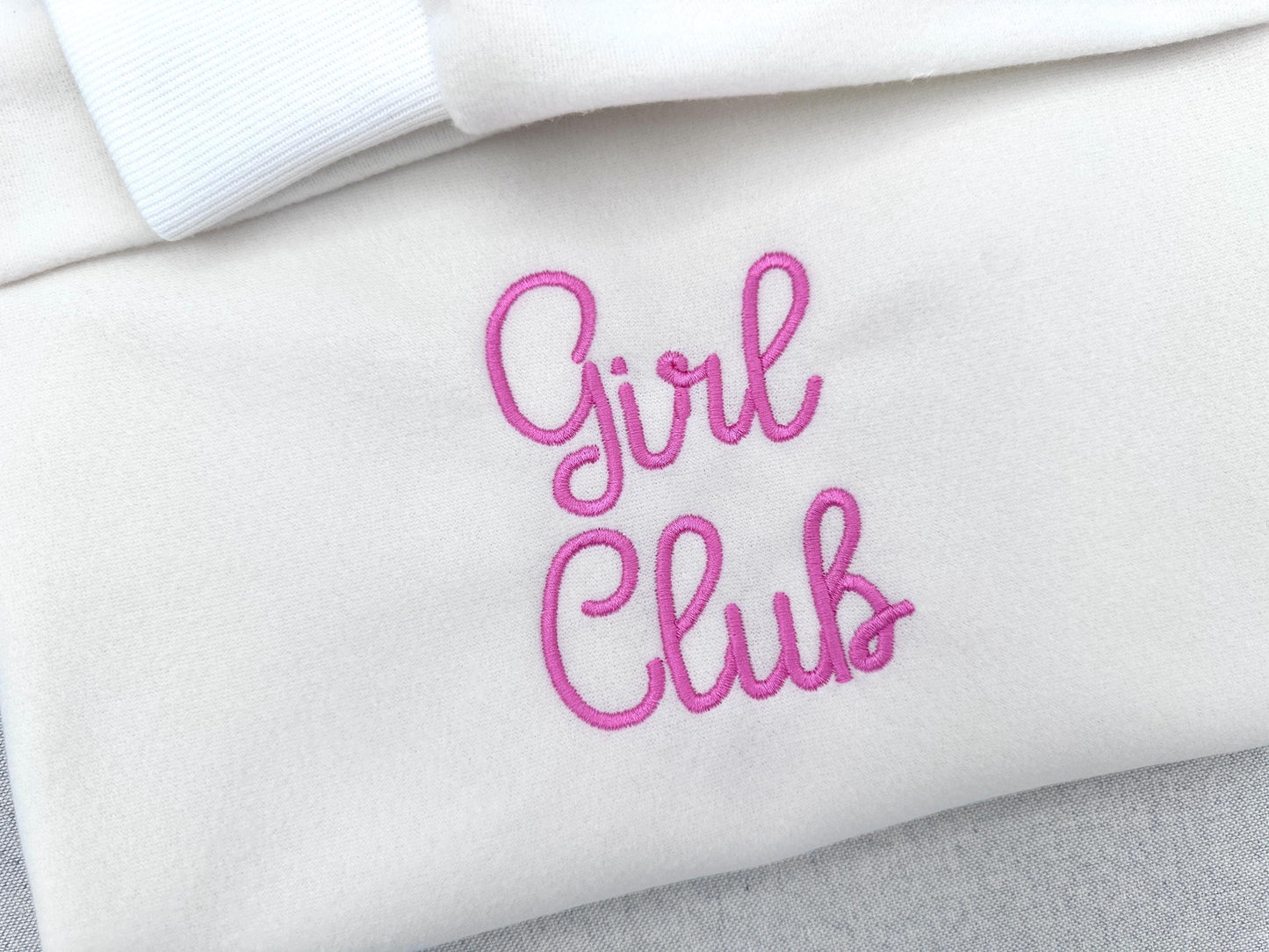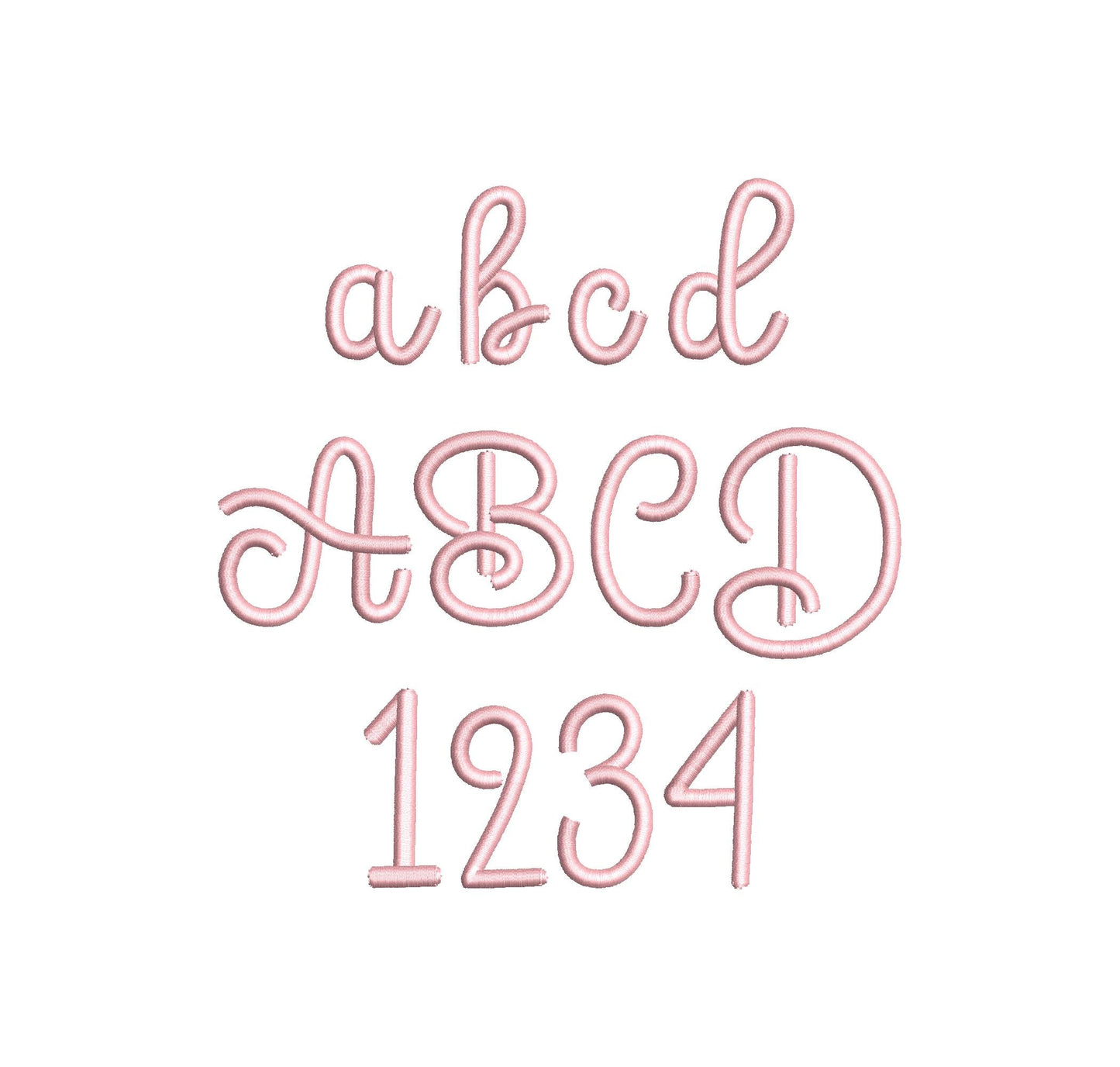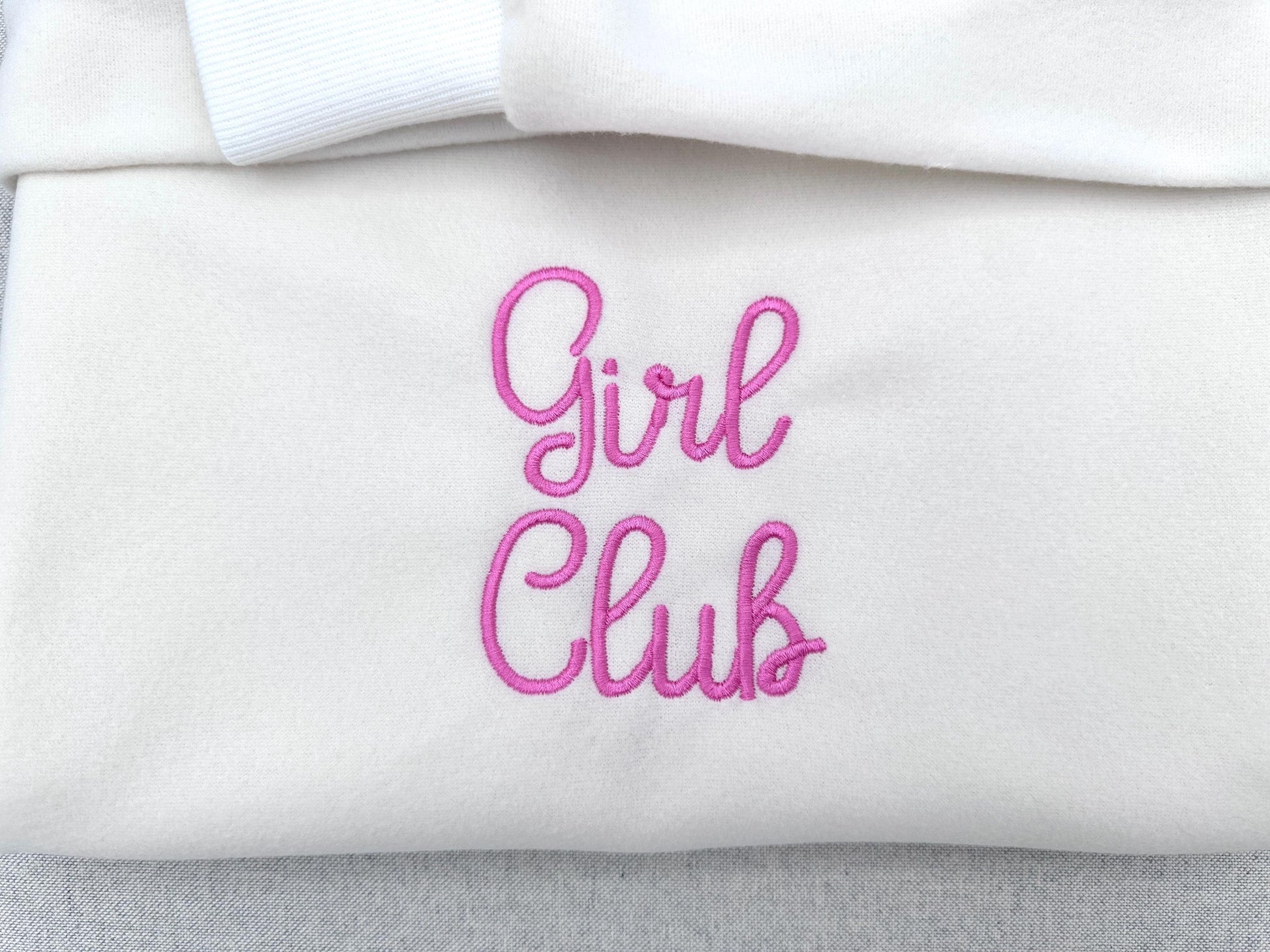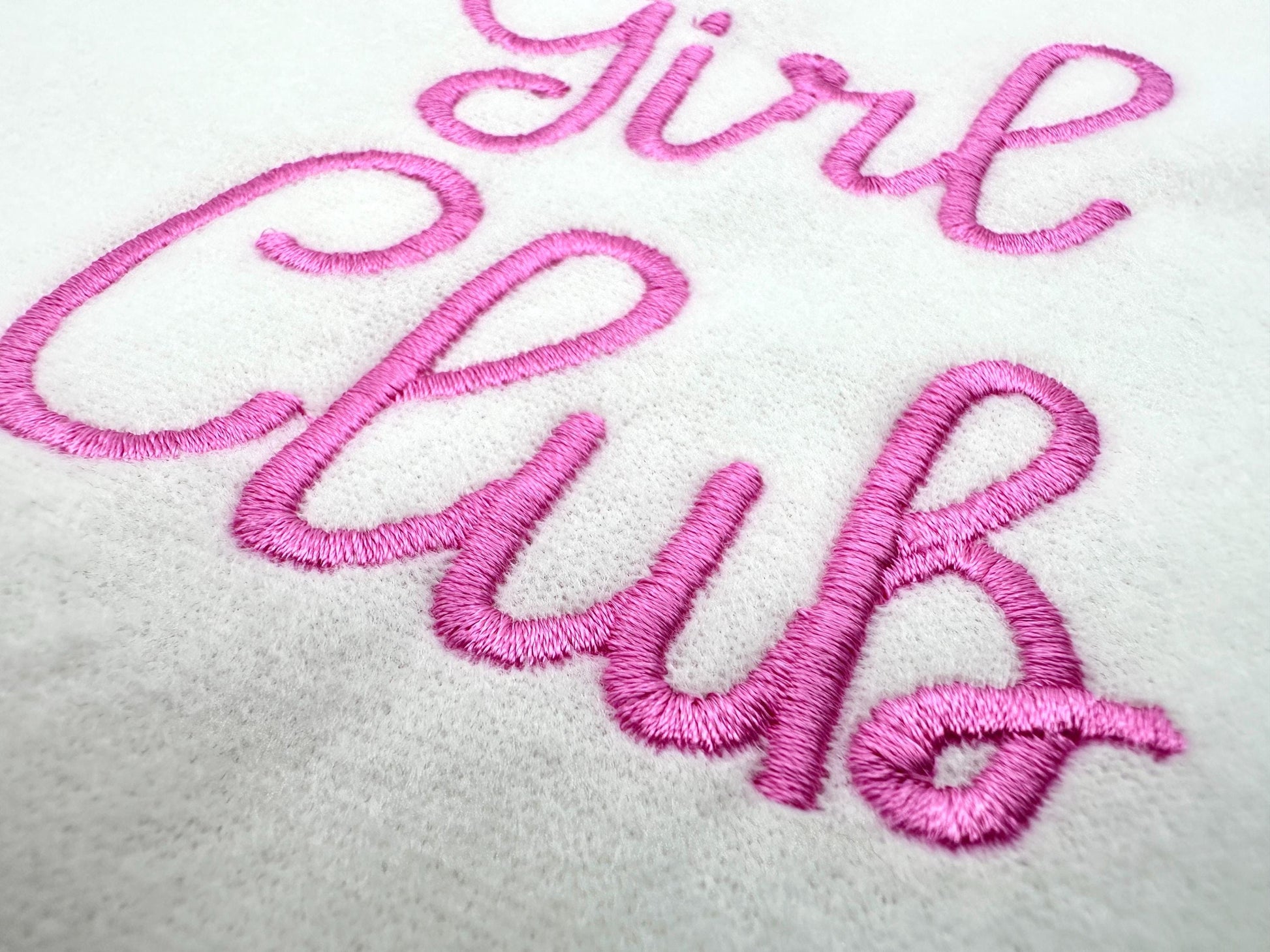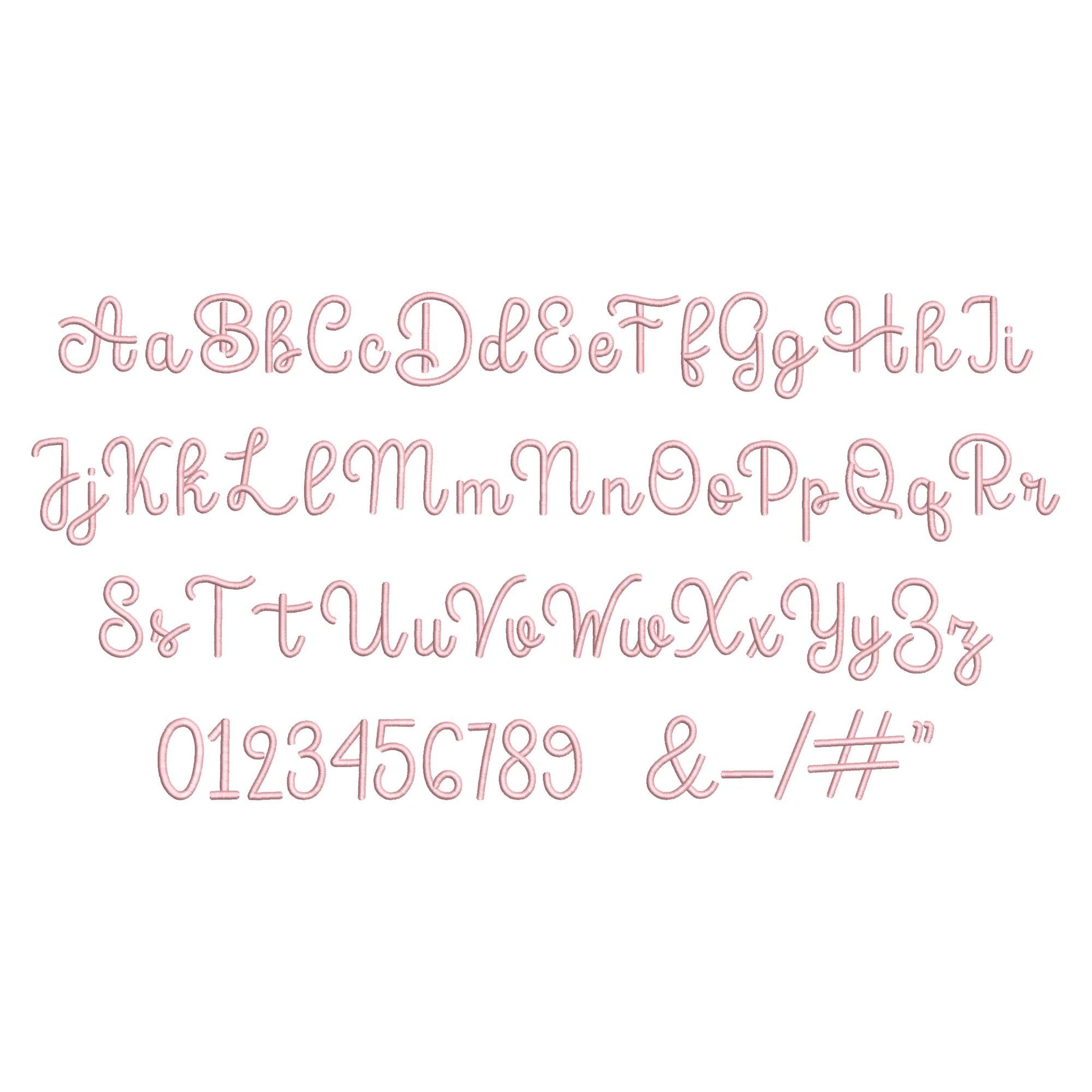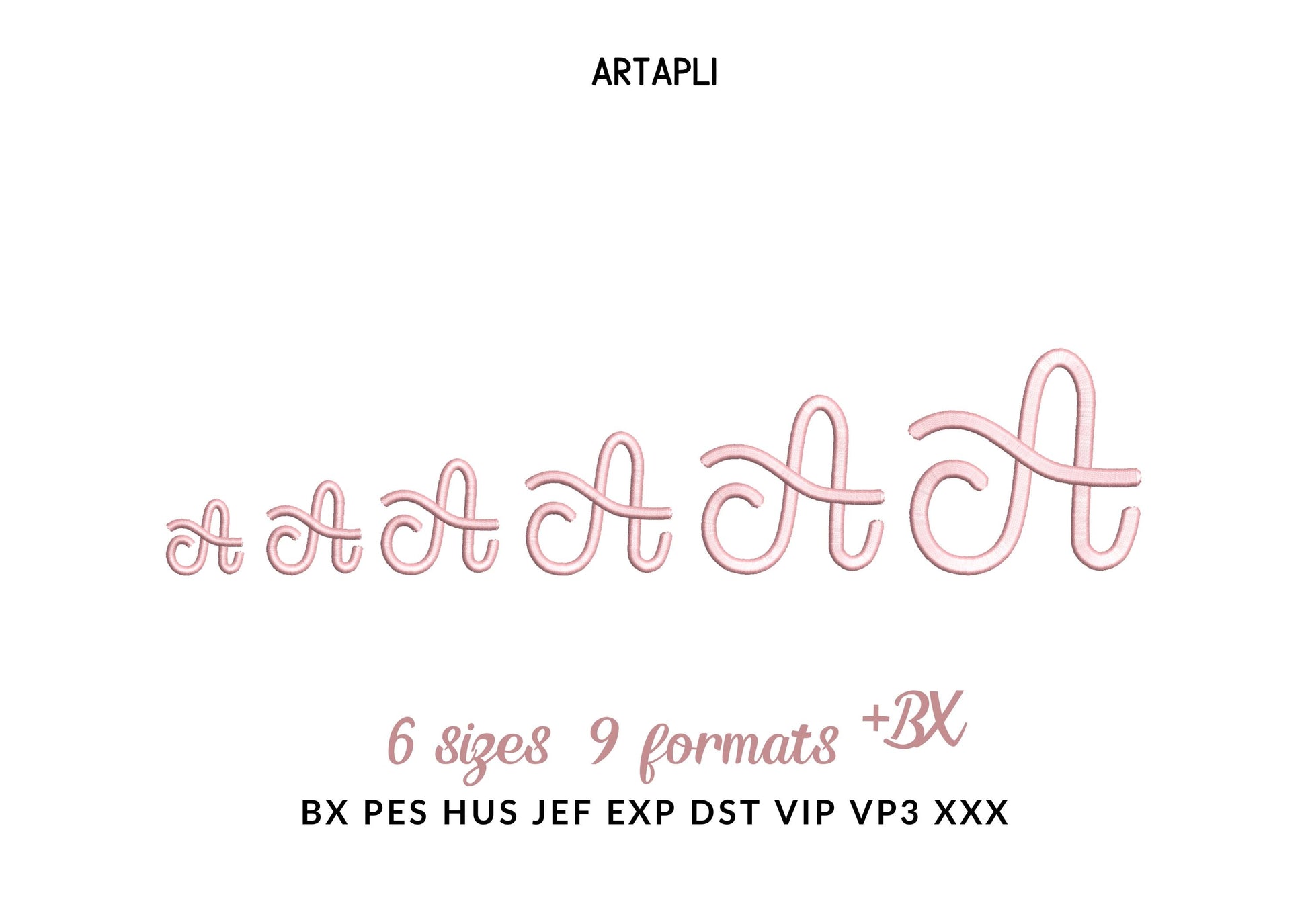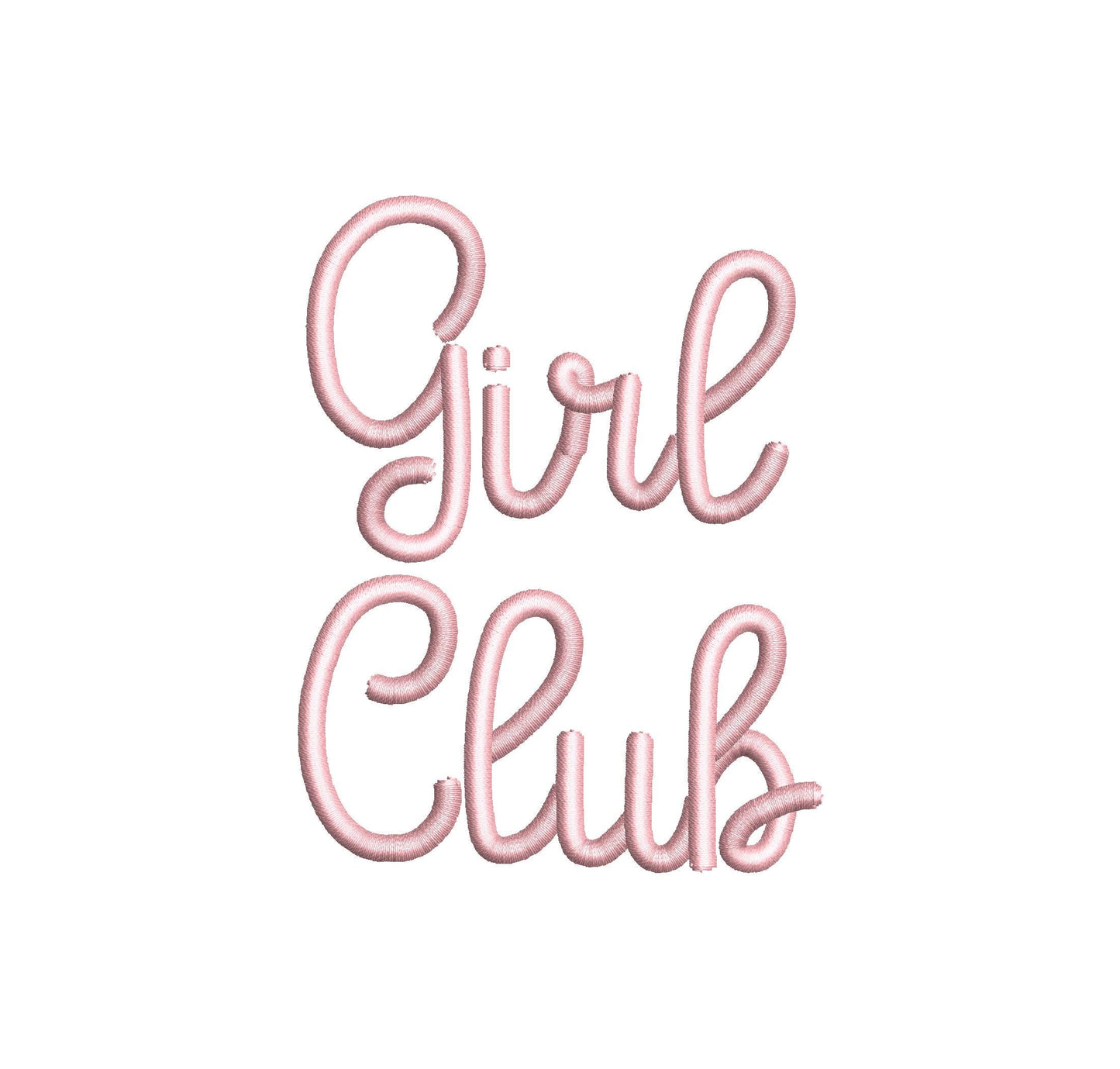
Sugar Satin Font
The letters come in six sizes: 1.2, 1.5, 1.8, 2.2, 2.8 and 3.5 inches. Smooth satin stitch letters with a flowing handwritten shape. Includes uppercase and lowercase letters, numbers 0 to 9 and punctuation.
- Satin stitch script font
- 6 sizes, 1.2 to 3.5 in